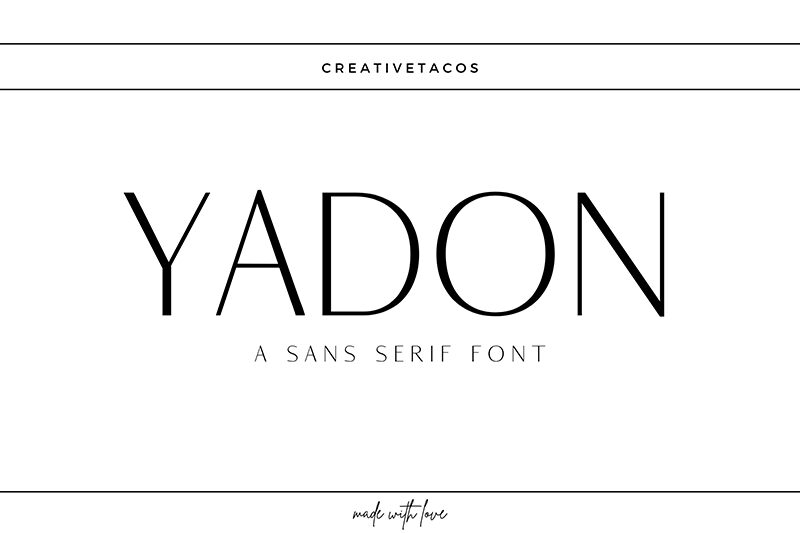
Yadon font by creativetacos is a free sans serif font that integrates simplicity and elegance. Sleek, modern, and minimalist, this typeface blends sophistication with a contemporary touch. The underlying style is clean and easy to read even when used in small font sizes.
Use it for personal typography projects, including logos, magazine covers, book designs, packaging, and labels. Titles within articles and blogs, intro screens for applications, and creative print pieces will also look neat with Yadon. The font is another great tool you can use to breathe life into invitations like wedding and engagement cards.